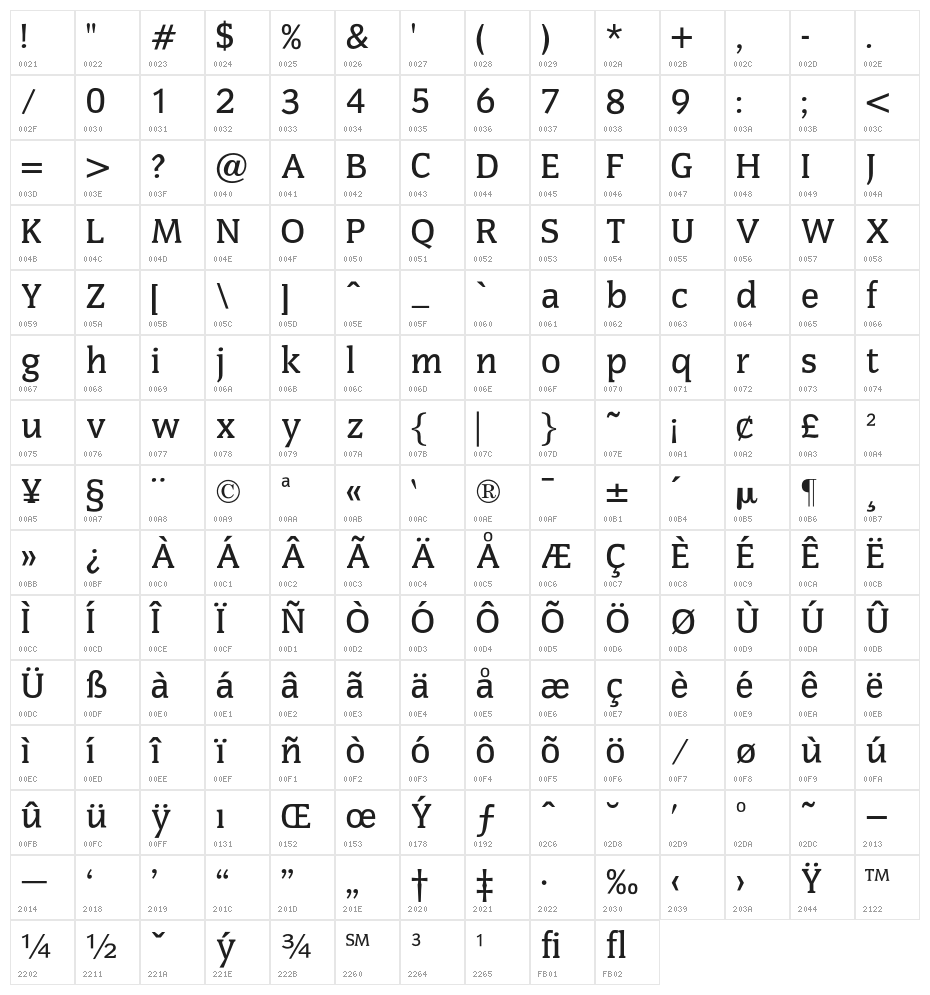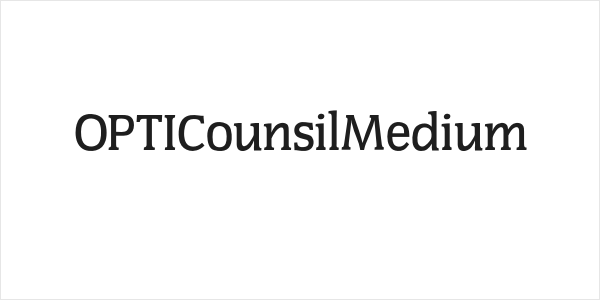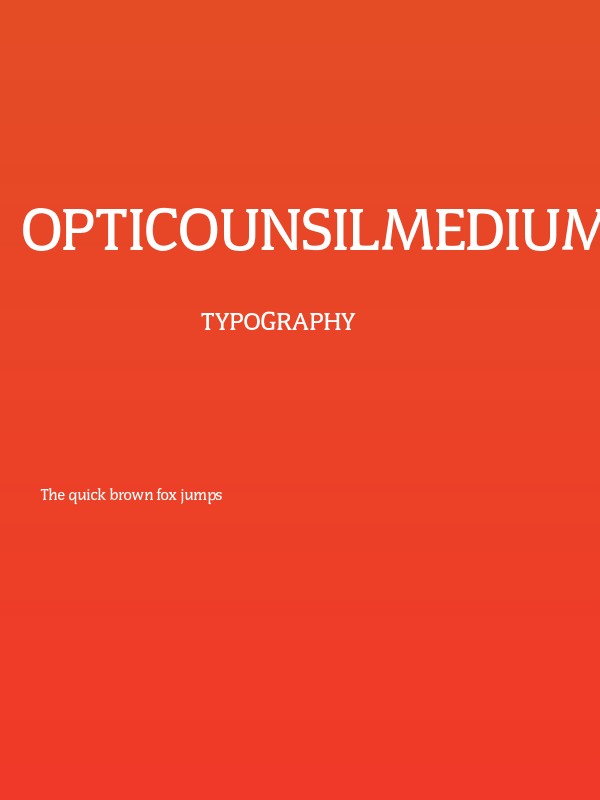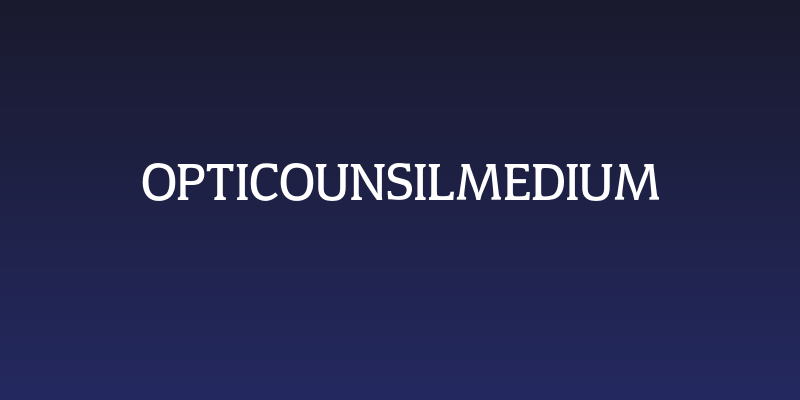
OPTICounsilMedium Font
OPTICounsilMedium Description
This font features a classic serif style with a modern twist, characterized by its clean lines and balanced proportions. The uppercase letters are bold and authoritative, while the lowercase letters maintain a harmonious flow. The numerals are clear and easily distinguishable, making them suitable for a variety of applications. Special characters are well-integrated, maintaining the overall aesthetic of the font. The design is versatile, offering a professional yet approachable appearance, suitable for both digital and print media.
Proposed ProjectsIdeal for editorial design, branding, and corporate communications.